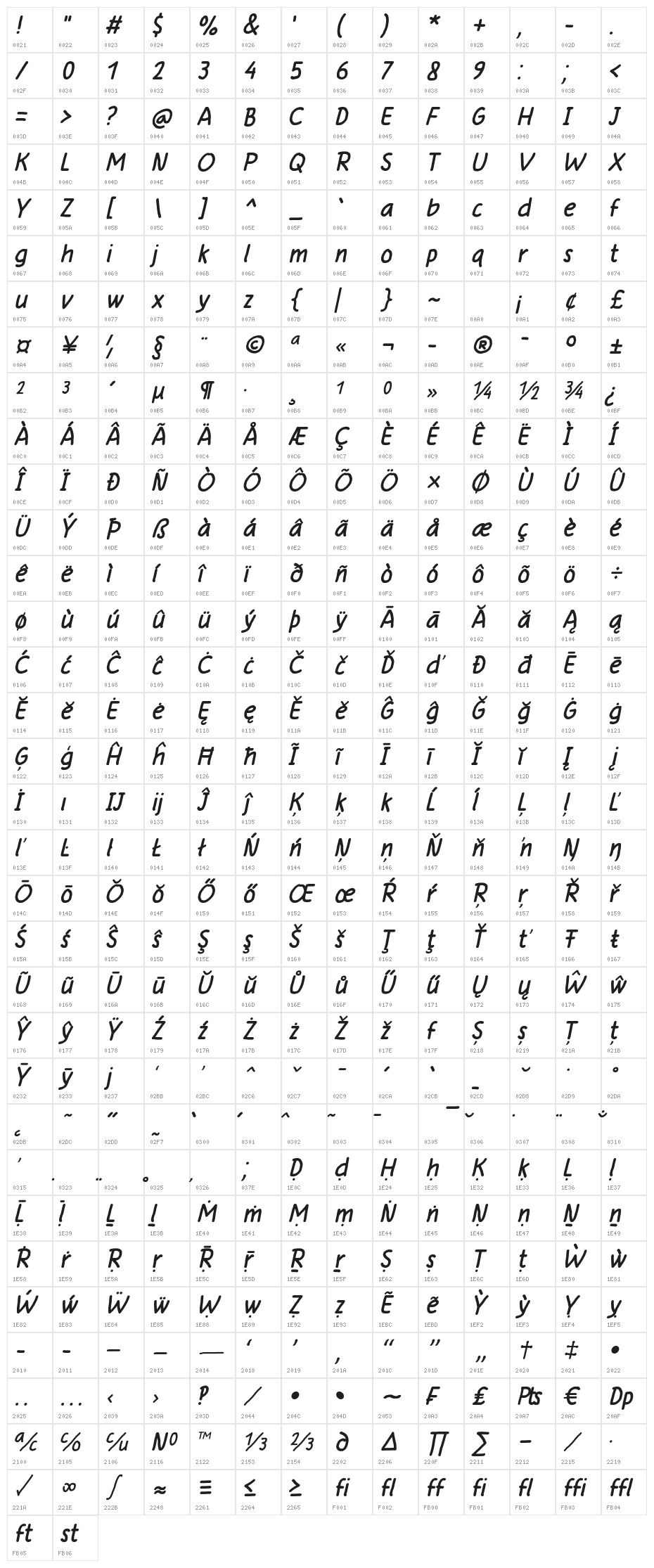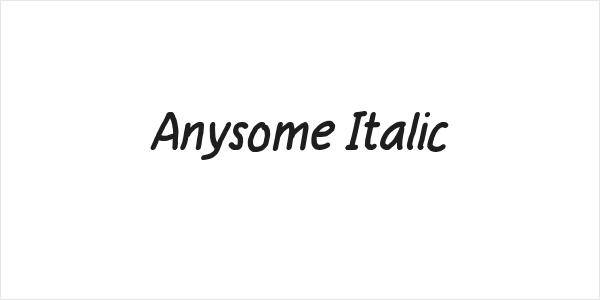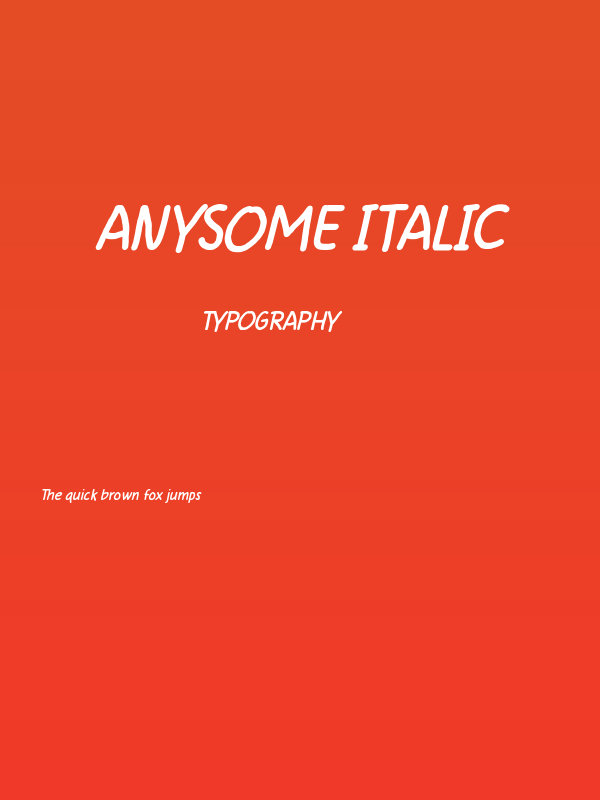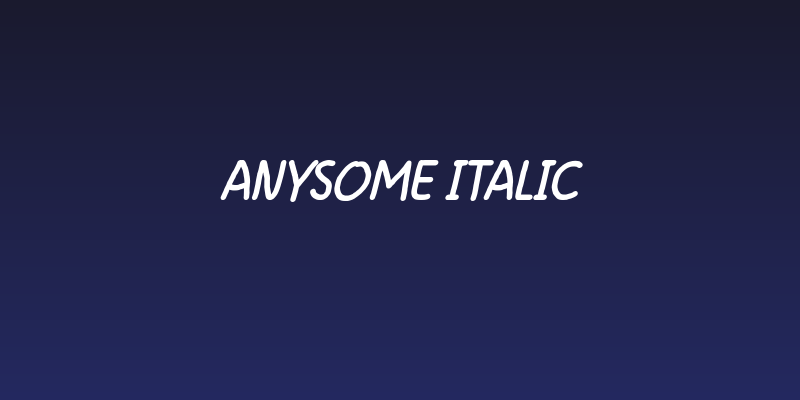
Anysome Italic Font
Anysome Italic Description
This font exhibits a playful and casual handwritten style, characterized by its smooth, flowing curves and slightly slanted orientation. The letters are well-rounded and maintain a consistent stroke width, giving it a friendly and approachable appearance. The uppercase and lowercase letters are distinct yet harmoniously balanced, with a slight inclination that adds a dynamic feel. The numerals are clear and legible, matching the overall style of the alphabet. Special characters are included, maintaining the same whimsical and informal aesthetic. This font is versatile, suitable for projects that require a personal touch or a relaxed vibe.
| Use Case | Logos, Headlines, Informal Text |
| Proposed Projects | Ideal for greeting cards, personal invitations, casual branding, and social media graphics. |